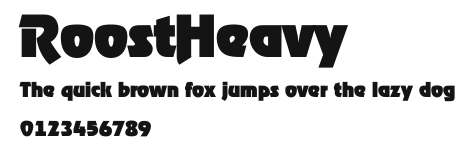
RoostHeavy Preview
• Font Name: RoostHeavy
• Full Font Name: RoostHeavy
• PostScript Name: RoostHeavy
About RoostHeavy.ttf
RoostHeavy.ttf is a modern, elegant sans-serif font designed for ultimate readability and visual harmony. Perfect for branding, headlines, web design, and print materials.